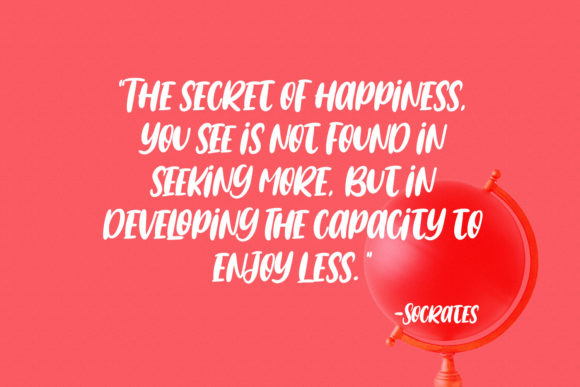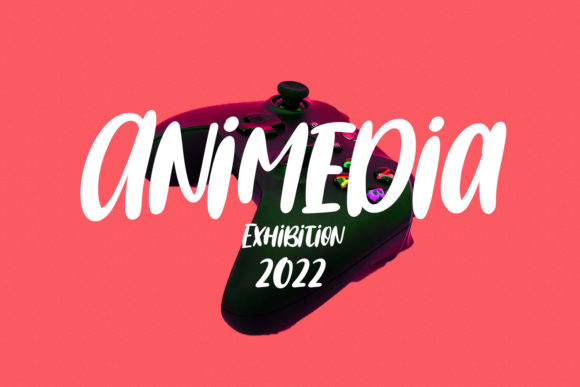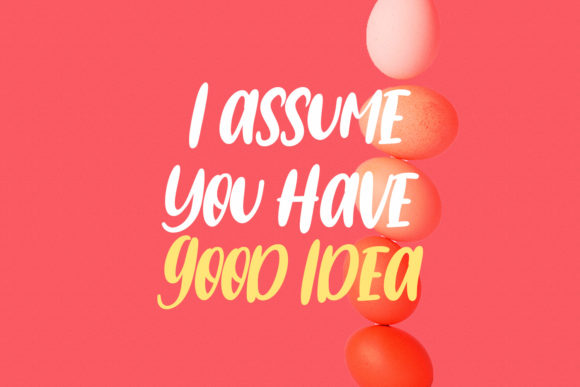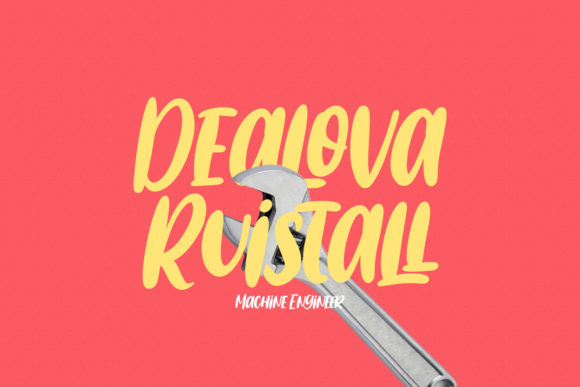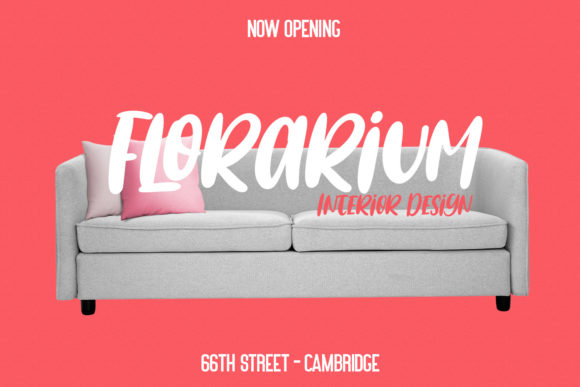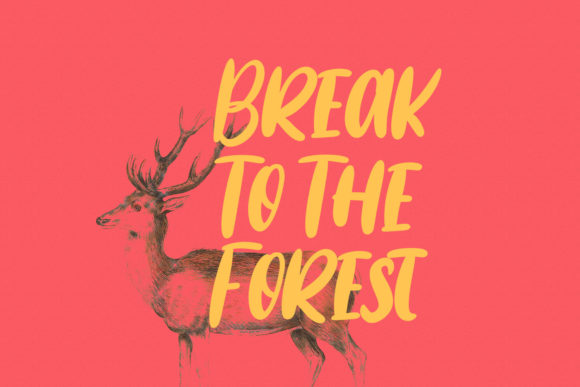
Introducing Florest Font: Elevate Your Designs with a Touch of Nature and Whimsy
Are you on the lookout for a font that can add a dash of personality and charm to your designs? Look no further than Florest Font, a natural and fun handwritten font that is sure to bring out the beauty in each of your creations. Masterfully designed with a touch of creativity, Florest Font is the perfect addition to your typography arsenal.
Handwritten fonts have a unique ability to add a personal touch to any design. They evoke a sense of warmth, friendliness, and approachability that is hard to replicate with more formal fonts. Florest Font takes this to the next level with its elegant yet playful script. Each letter is carefully crafted to convey a sense of whimsy and delight, making it perfect for designers and crafters who want to add a touch of personality to their work.
What Makes Florest Font Special?
So, what sets Florest Font apart from other handwritten fonts on the market? Here are just a few reasons why designers and crafters are falling in love with this beautiful font:
• Natural and Fun: Florest Font has a lighthearted, organic feel that is perfect for designs that need a playful touch. Whether you’re creating a brand identity, a social media graphic, or a craft project, Florest Font is sure to bring a smile to your audience’s face.
• Masterfully Designed: The designers behind Florest Font have poured their hearts and souls into creating a font that is both beautiful and functional. Each letter is carefully crafted to ensure that it looks great in any context, from large headlines to small body text.
• Versatile: Florest Font is incredibly versatile, making it suitable for a wide range of design applications. Use it for branding, packaging, social media graphics, crafts, and more.
How to Use Florest Font in Your Designs
Ready to start using Florest Font in your designs? Here are a few tips to get you started:
• Pair it with Other Fonts: Florest Font looks great when paired with other fonts, especially sans-serif fonts like Arial or Helvetica. Experiment with different combinations to find the perfect look for your design.
• Use it for Headlines and Titles: Florest Font is perfect for headlines and titles, where its playful script can really shine. Use it to add a touch of personality to your blog posts, social media graphics, and more.
• Add it to Your Brand Identity: If you’re looking to create a cohesive brand identity, consider using Florest Font as part of your typography system. Its unique script is sure to help your brand stand out from the crowd.
Why Designers and Crafters Love Florest Font
So, why are designers and crafters raving about Florest Font? Here are just a few reasons:
• Easy to Read: Despite its playful script, Florest Font is incredibly easy to read, even at small sizes. This makes it perfect for body text, captions, and other applications where legibility is key.
• Highly Customizable: With Florest Font, you can easily customize the look and feel of your text to suit your design needs. Experiment with different colors, sizes, and styles to create a unique look.
• Perfect for Crafts: Florest Font is a popular choice among crafters, who love using it for projects like scrapbooking, card making, and DIY signage. Its playful script adds a touch of personality to any craft project.
In conclusion, Florest Font is a beautiful and versatile handwritten font that is sure to bring a touch of nature and whimsy to your designs. With its elegant script, playful personality, and high level of customizability, it’s the perfect choice for designers and crafters who want to add a dash of personality to their work. So why wait? Download Florest Font today and start elevating your designs to the next level!